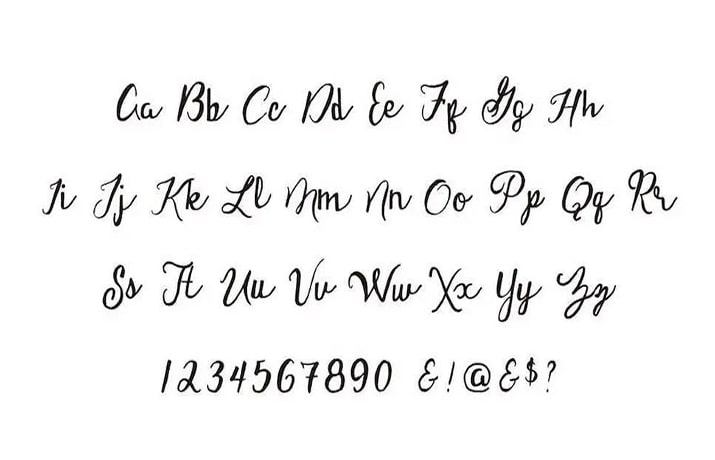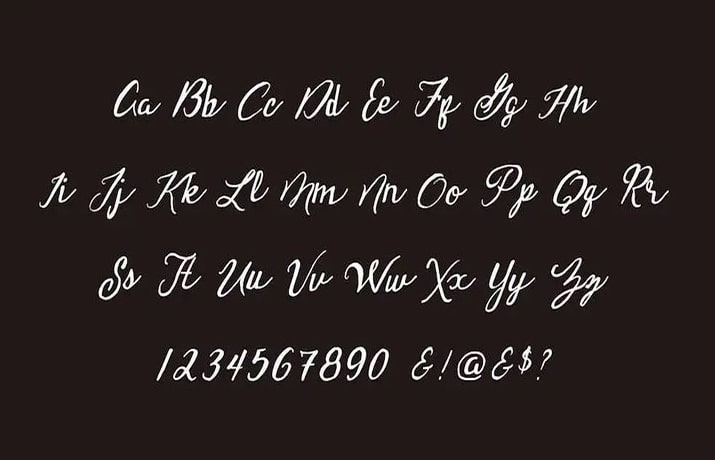
Here we have a new hand brush font that is sure to make an impression. It has a nice, modern design and contains everything you’d expect in a decent typeface.
Pixel Surplus has taken the charge of designing it for the first time on 2 December 2017. And it was designed by Sneflenie.
All characters, including this handwritten font family, have excellent readable text forms. Featuring a super cool OpenType with unique textures and extensive language support.
It’s ideal for a wide range of design purposes. Each letter in this fine quality font family speaks to the dedication of the designer team that worked on it.
Font Name: | Westchester Font Family |
Style: | Brush, Script, Typeface |
Font Designer: | Sneflenie |
This font contains more than 158 magnificent characters including all capital letters. It also contains icons, and ascending and descending characters that help in creating modern graphic designs.